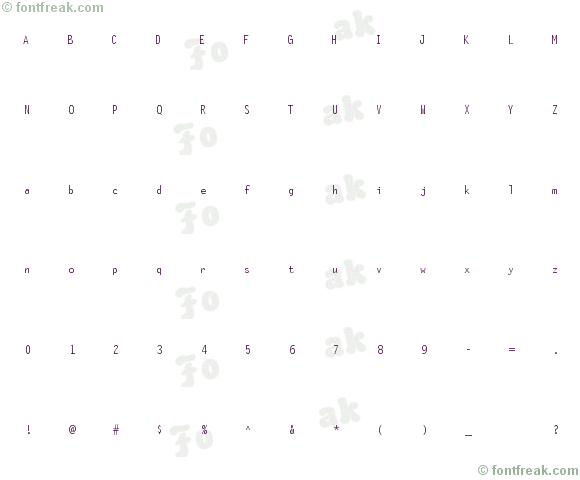
Ocelot Monowidth
Ocelot Monowidth is a distinctive monospaced typeface designed by Dennis Palumbo, released under a shareware license. This font stands out for its clean, modern aesthetic, making it an excellent choice for various digital and print applications. The monowidth style lends itself to uniform spacing, allowing for easy readability, which is a crucial feature for programming and coding environments. The stroke weight is consistent throughout, with minimal contrast, giving it a sleek and streamlined appearance.
Visually, Ocelot Monowidth features rounded edges and subtle geometric shapes, enhancing its contemporary look. The spacing between characters is thoughtfully designed to maintain clarity without feeling cramped, making it ideal for both headings and body text. While it lacks elaborate decorative elements, its simplicity is part of its charm, making it versatile for numerous design contexts.
This font is perfect for use cases such as website coding, creating technical manuals, and designing user interfaces. It is also a great choice for graphic designers working on branding projects, as its modern style can complement logos and promotional materials. Small business owners can utilize Ocelot Monowidth for creating clear and concise signage or menu designs, ensuring their messaging remains straightforward and accessible. Content creators can also benefit from this font for formatting articles or presentations where readability is paramount.